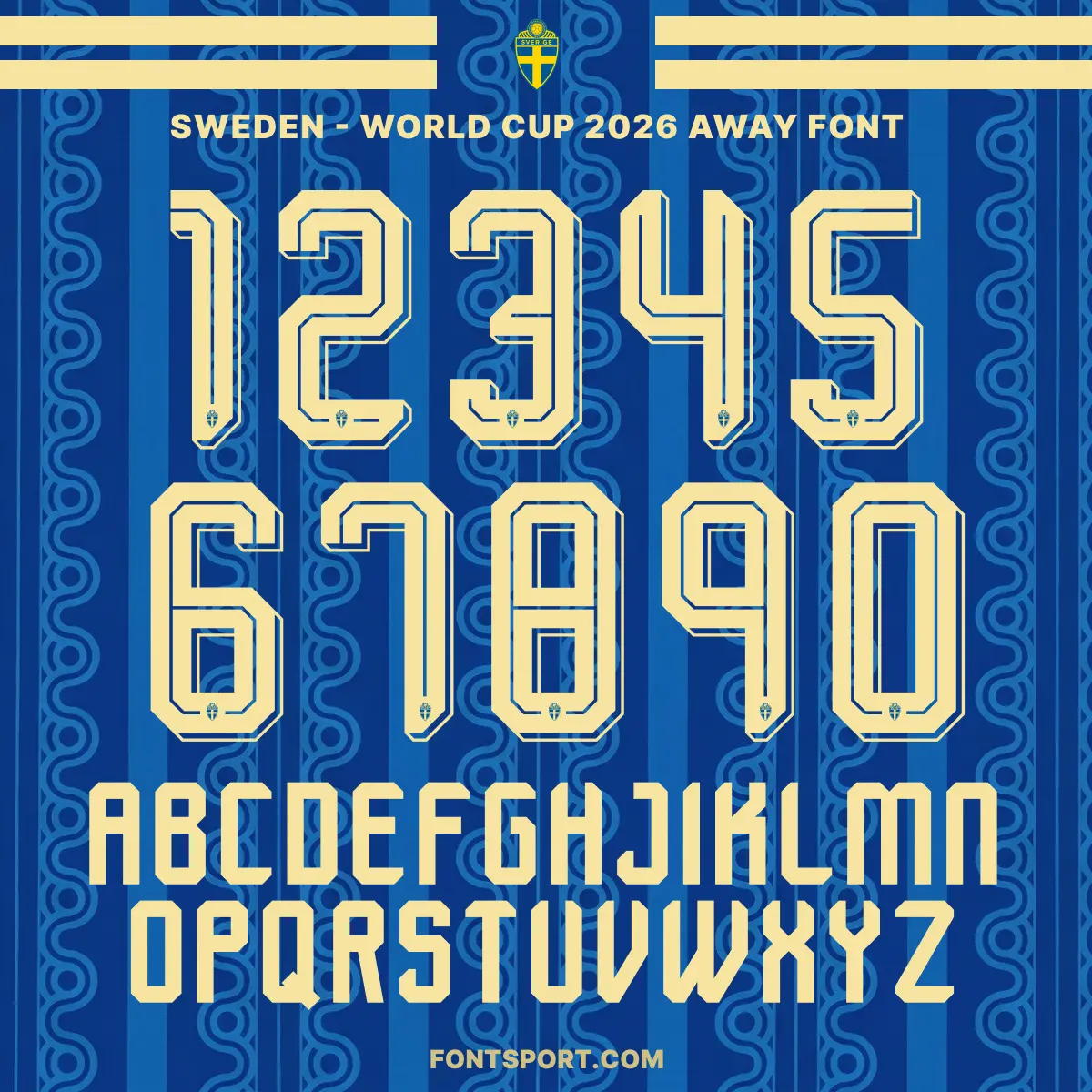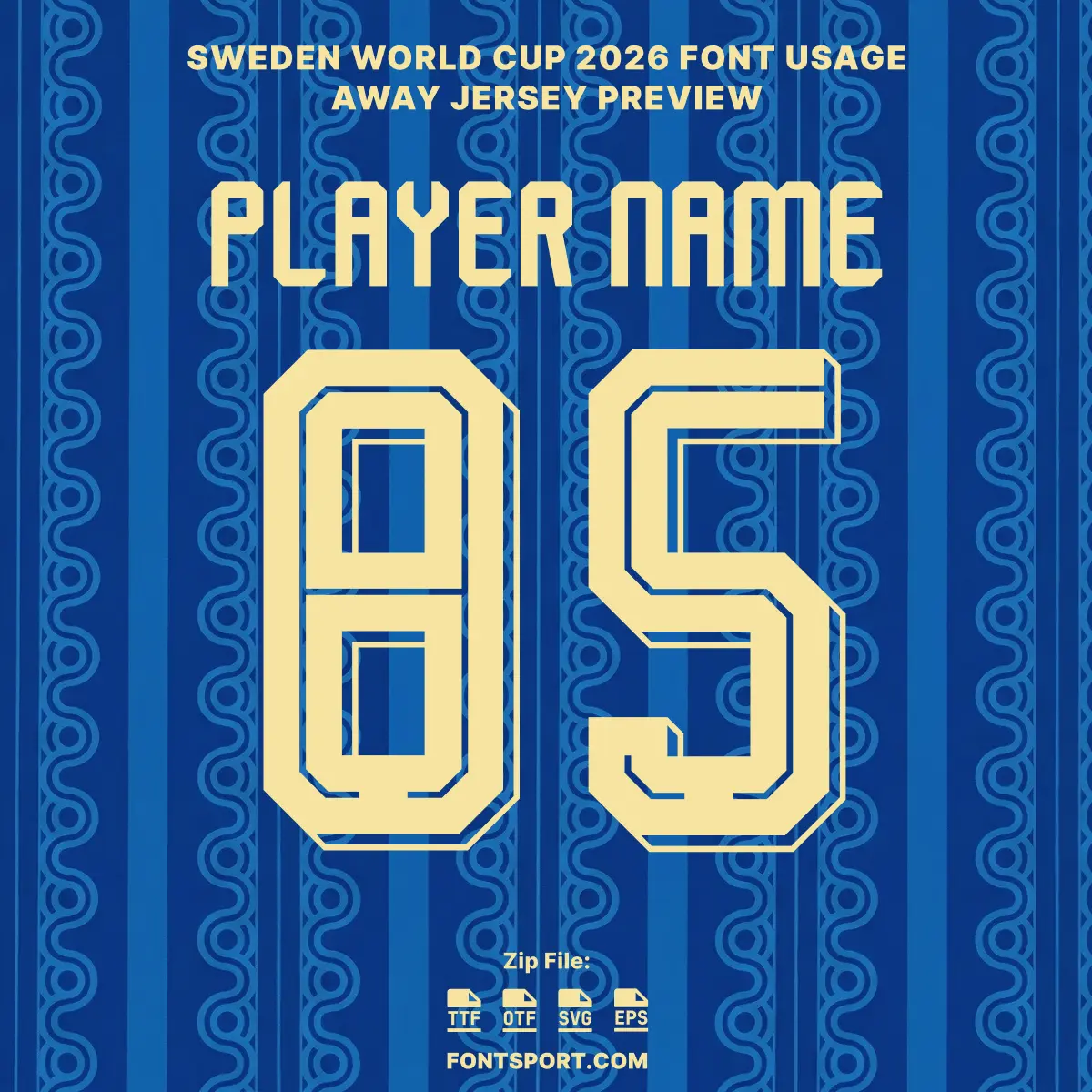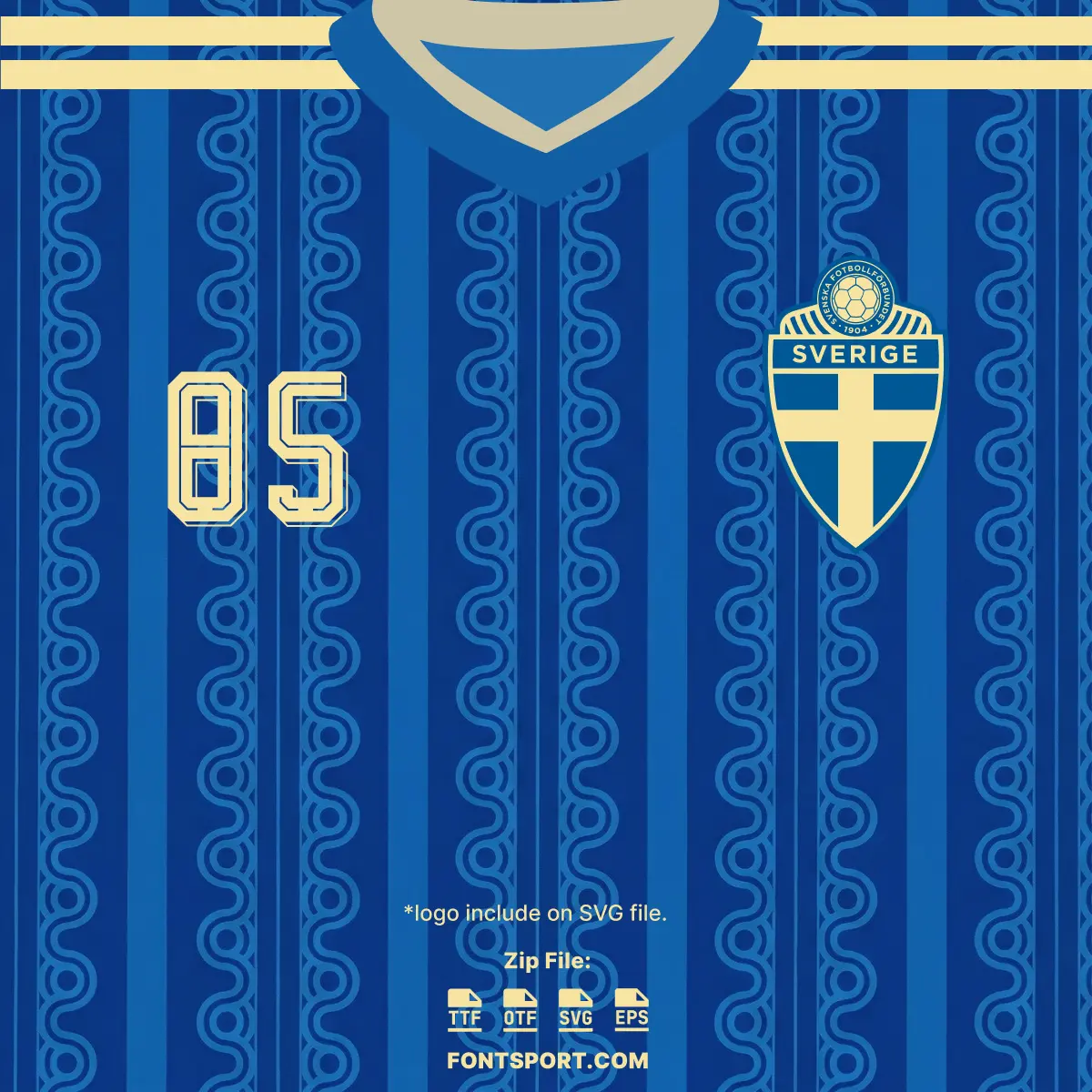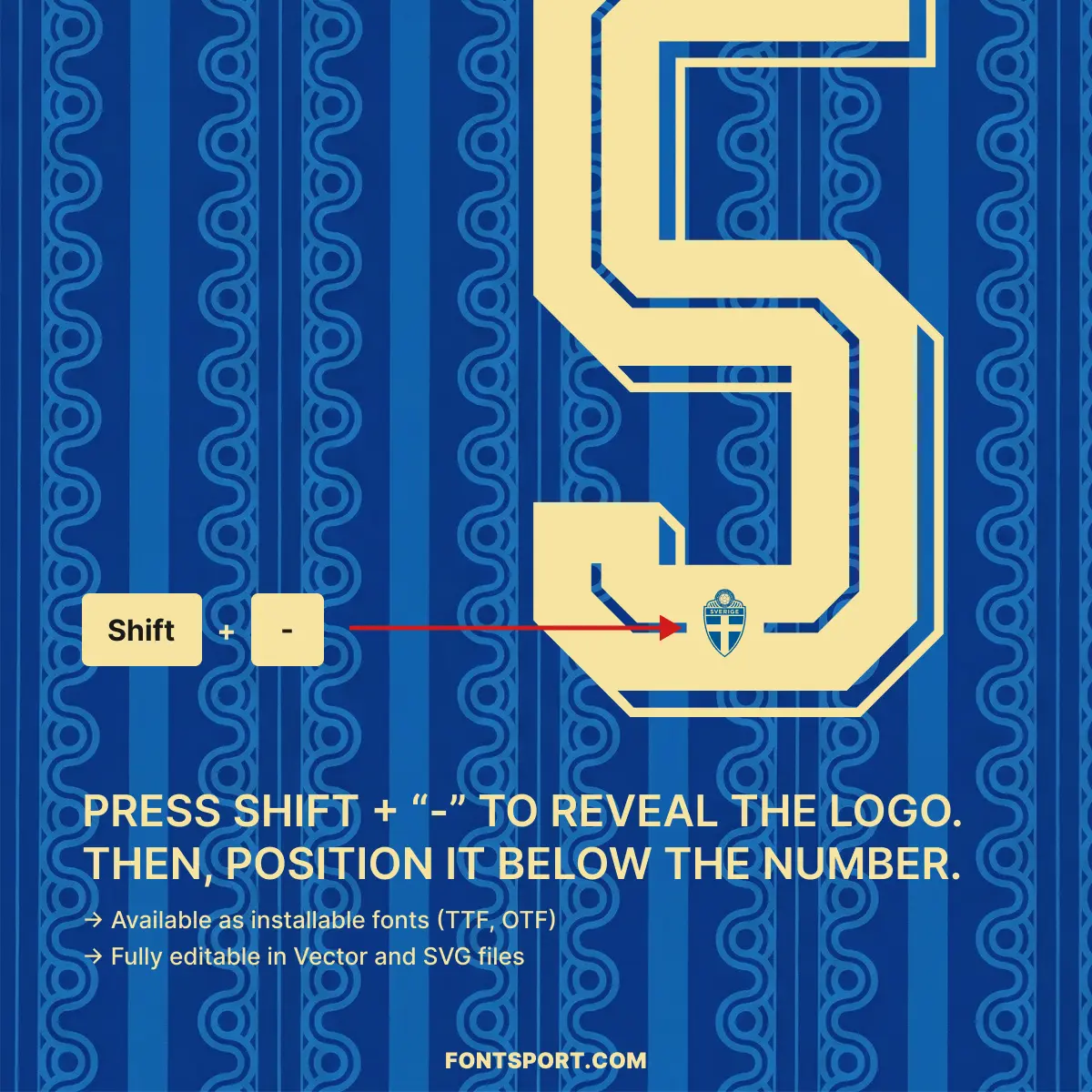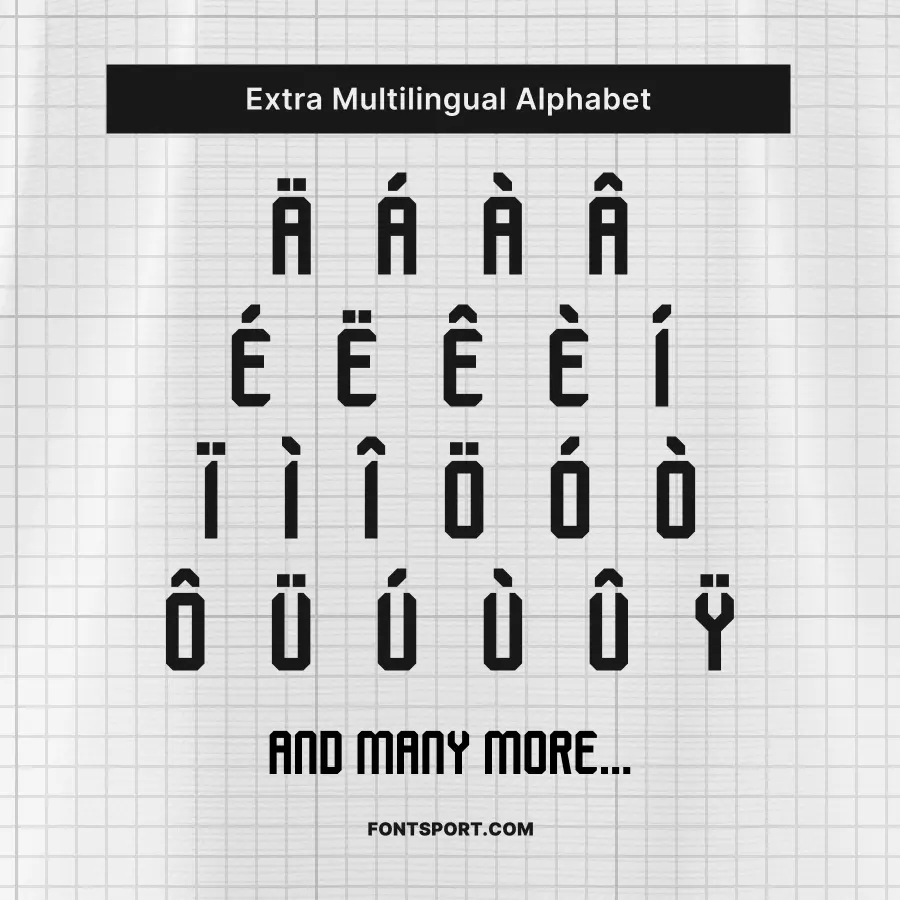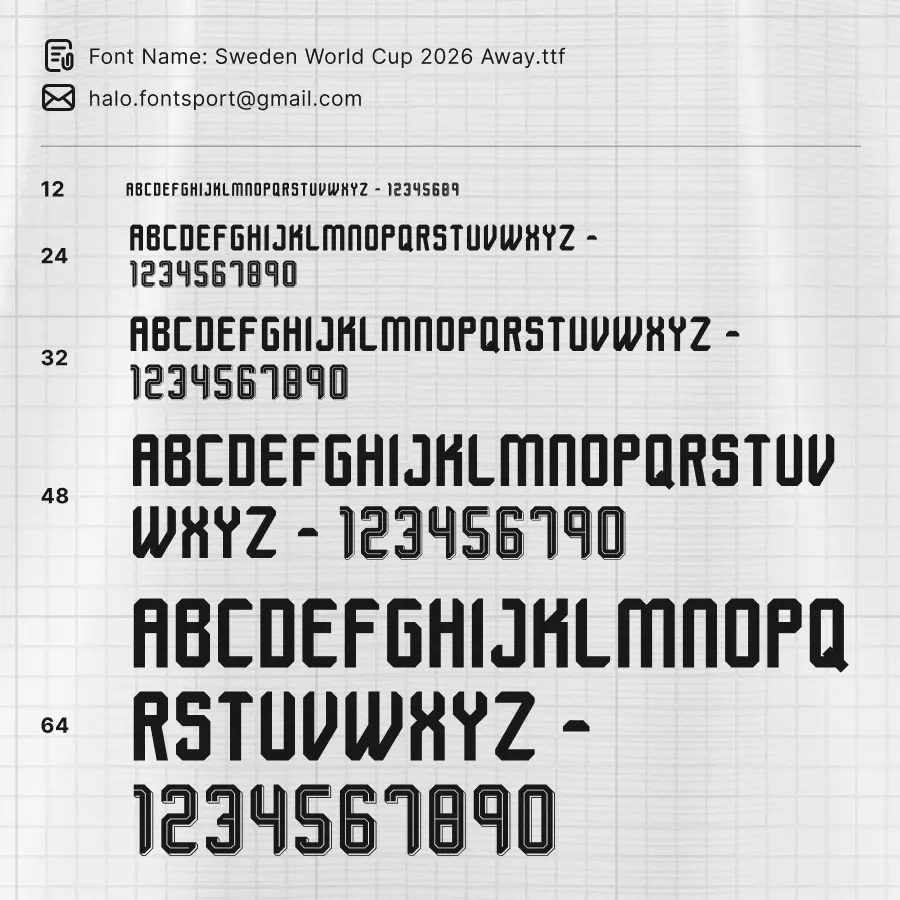
Sweden World Cup 2026 Away Font Kit – Football Typeface
The Sweden World Cup 2026 Away Font Kit celebrates the triumphant return of the Swedish national team to the world’s biggest stage. This font captures the “70s-inspired” elegance of the new era under coach Graham Potter, blending a nostalgic Royal Blue aesthetic with the high-performance demands of modern international football. As Sweden prepares to bring their tactical precision to Group F, this typeface stands as a bold symbol of a nation re-emerging among the global elite.
• Complete A–Z Character Set: Features the clean, modern uppercase letters that will be worn by stars like Viktor Gyökeres and Alexander Isak.
• Full 0–9 Number Set: Optimized for maximum visibility, mirroring the numbers that led Sweden through their dramatic play-off victory.
• Extra Multilingual Alphabet: Full support for accented characters (Å, Ä, Ö, etc.), allowing you to accurately represent Swedish and international roster names.
• Integrated Team Identity: Add an authentic finish to your designs by revealing the official-style SvFF crest within the typography through a simple keyboard shortcut.
This font kit is engineered for designers who want to bridge the gap between heritage style and contemporary performance:
• Trefoil Heritage Era: Marks the return of the iconic adidas Trefoil logo to the Sweden national shirt for the first time in decades, bringing a classic 90s aesthetic into the 2026 cycle.
• Royal Blue Aesthetic: The typography is designed to complement a predominantly Royal Blue strip featuring tonal stripes and a pale yellow V-neck collar.
• Optimized for Apparel: An ideal font for jersey printing, sports branding, and team uniforms that require a “clean and structured” look.
• Versatile Design Asset: Use it as a football font for digital match-day banners or a sport font for physical print-on-demand products.
Sweden national football team 2026 World Cup away jersey font typography and numbers full set